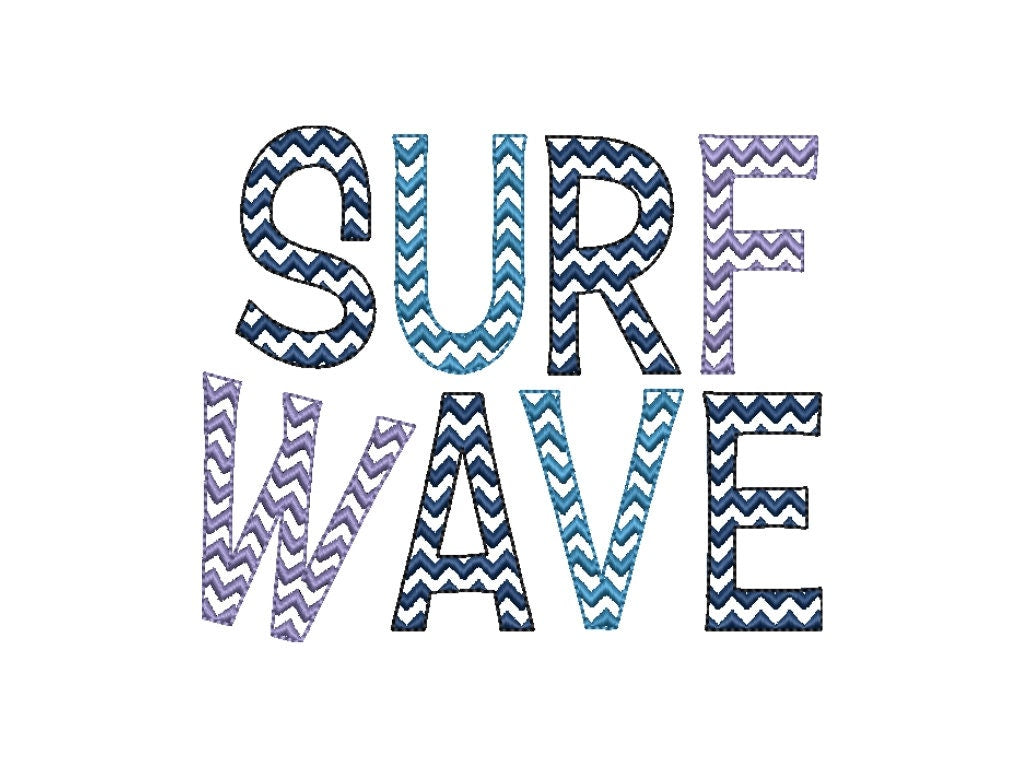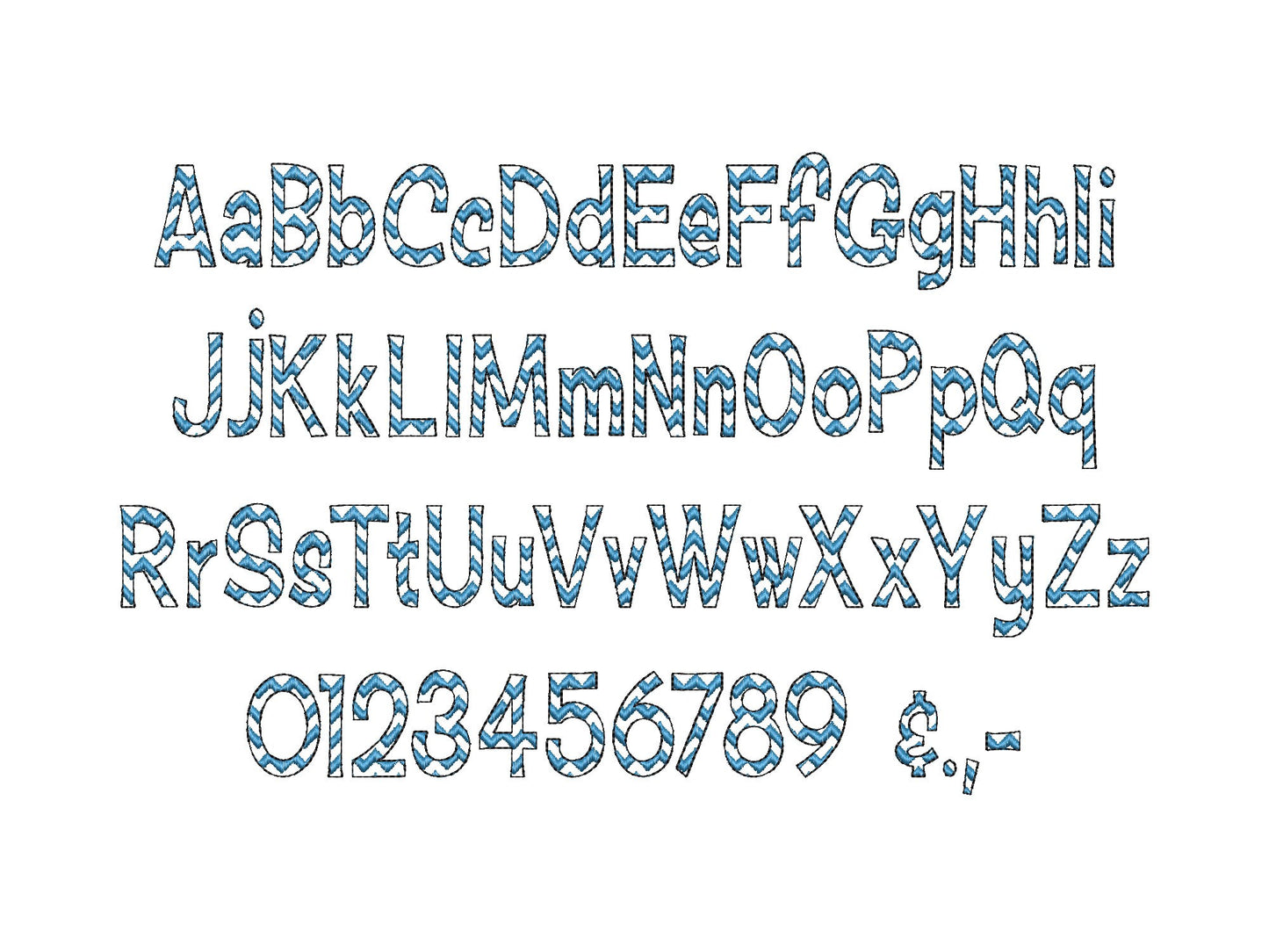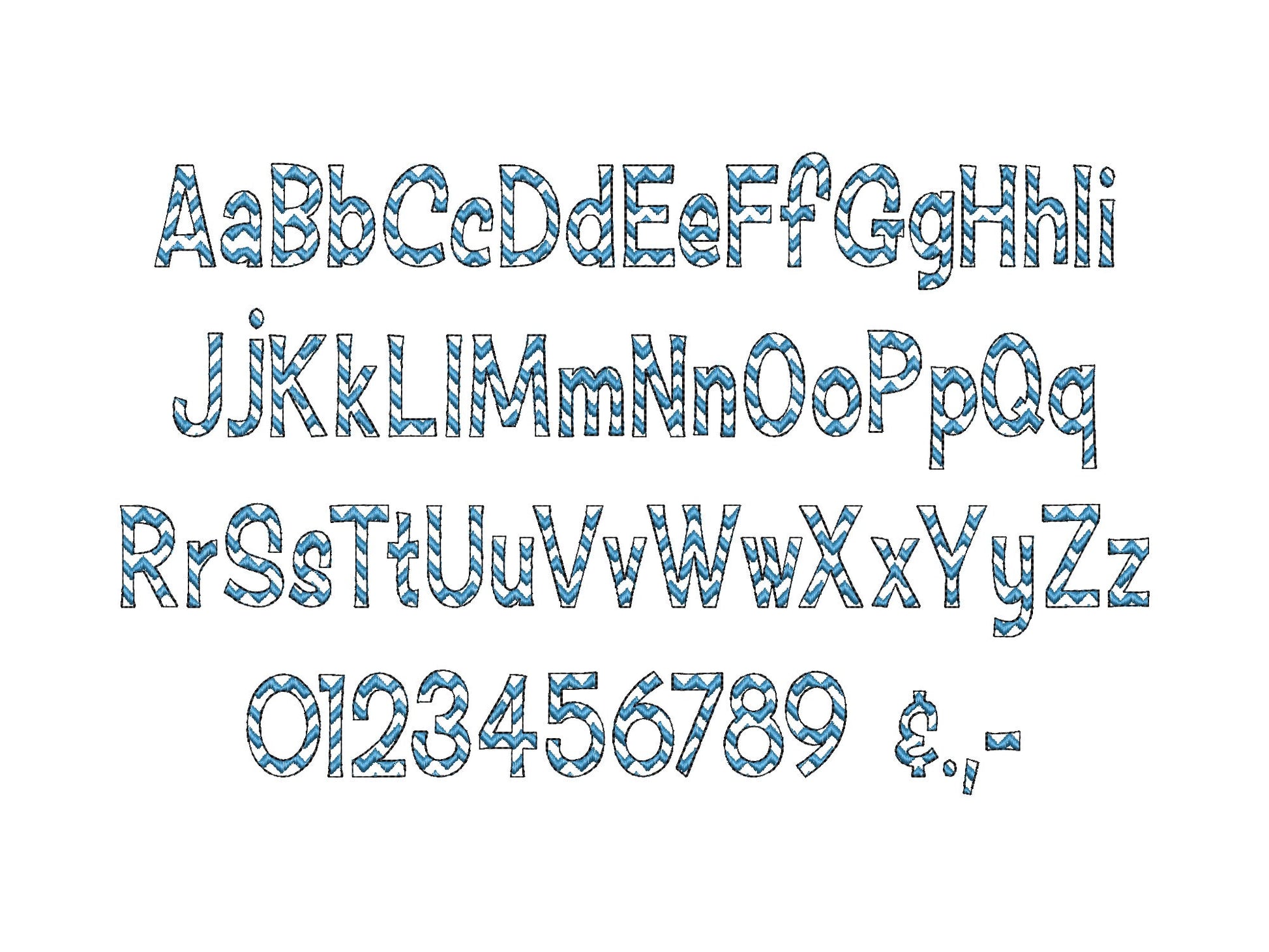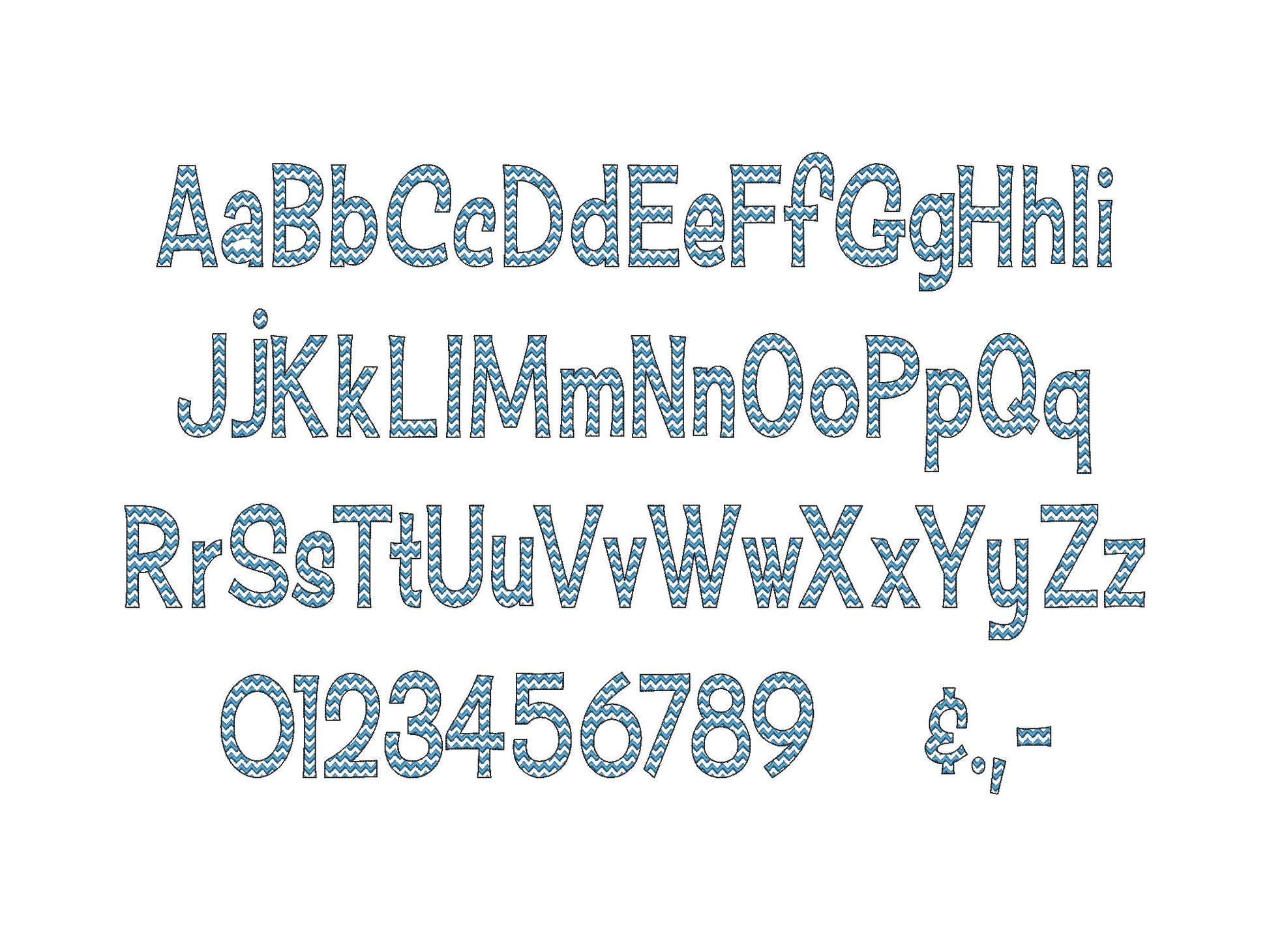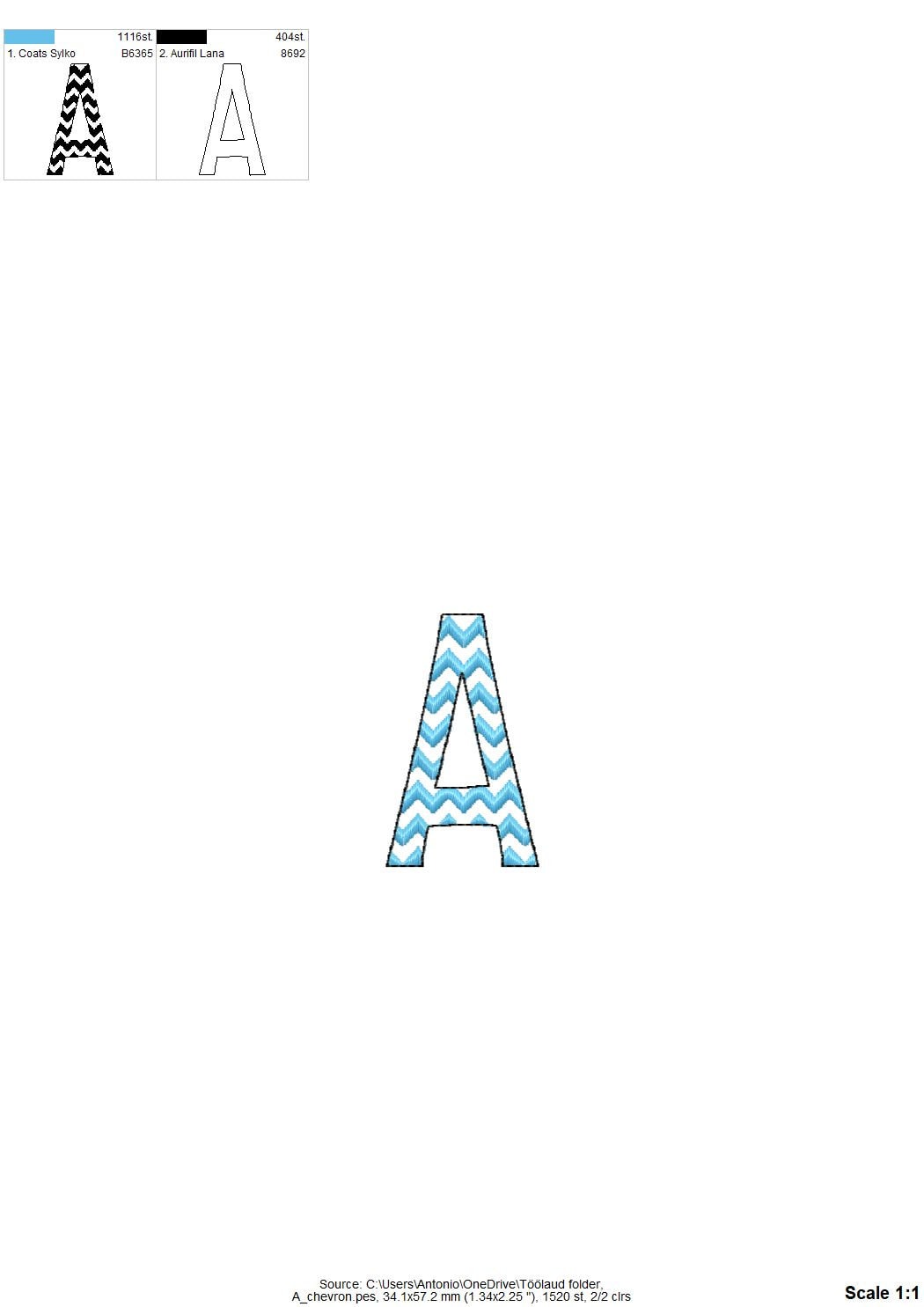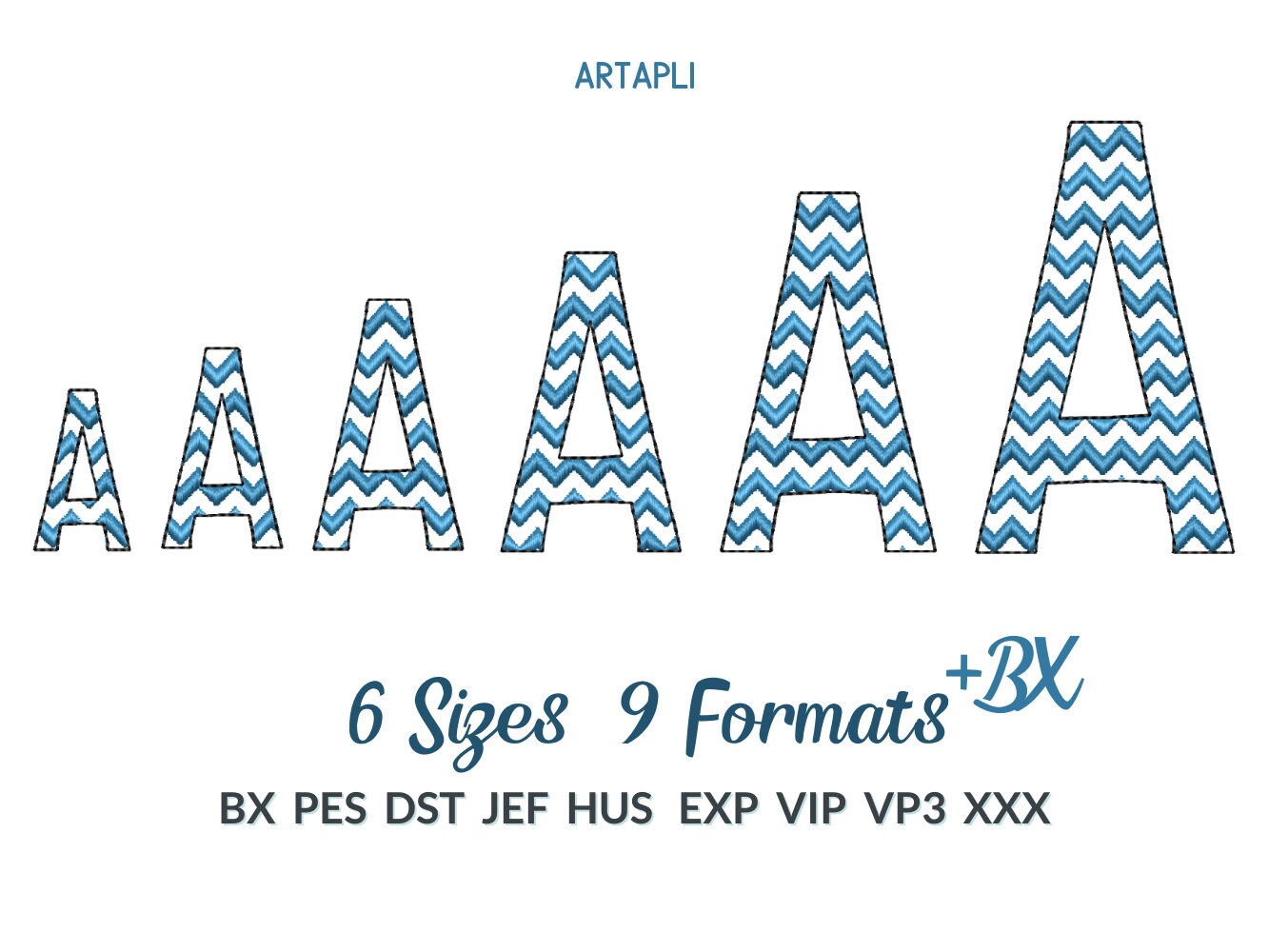
Chevron Font Ricrac Chevron Alphabet Versatile Letters and Numbers
Or click to open the linkA ricrac chevron font with zigzag lines stitched inside every letter. Fun for kids' shirts, pillows, bags and monograms.
Uppercase and lowercase letters, numbers 0 to 9, plus &, period, comma and dash. Six sizes: 1.2, 1.5, 2, 2.2, 2.7 and 3.2 inches. The chevron lines are embroidered, not applique, and the fabric shows through.
- Ricrac chevron patterned font
- Uppercase, lowercase, numbers 0 to 9, punctuation
- 6 sizes, 1.2 to 3.2 in